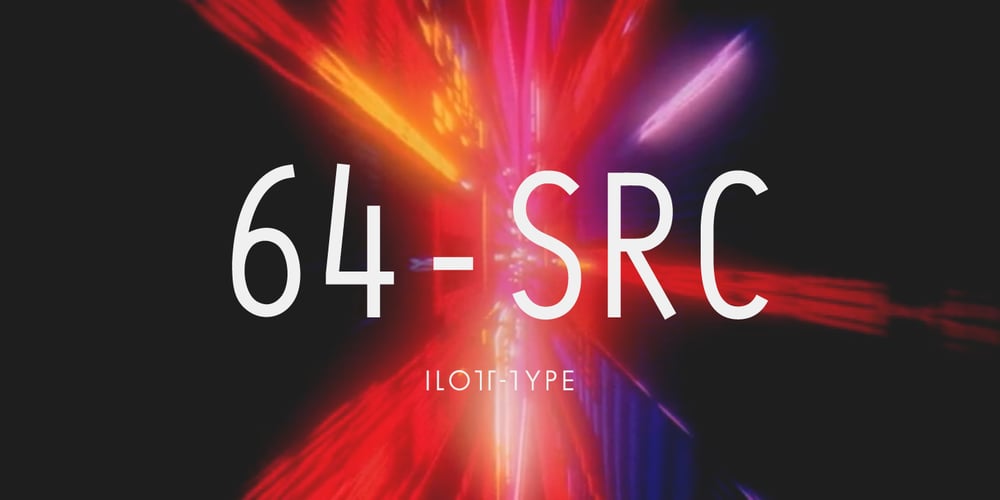
64-SRC
64-SRC font
64-SRC Font Family was designed by Andrew Bellamy and published by ILOTT-TYPE. 64-SRC contains 6 styles and family package options. 64-SRC is a condensed monospace font inspired by 1960s IBM Selectric type seen on HAL’s telemetric displays in 2001: A Space Odyssey. It is characterized by unique “double-space” alternates for the widest characters such as “w” and “m”. These alternates maximize legibility, improve the rhythm of readability and keep typographic color even. As a result 64-SRC is as well suited for extensive copy as it is display type.